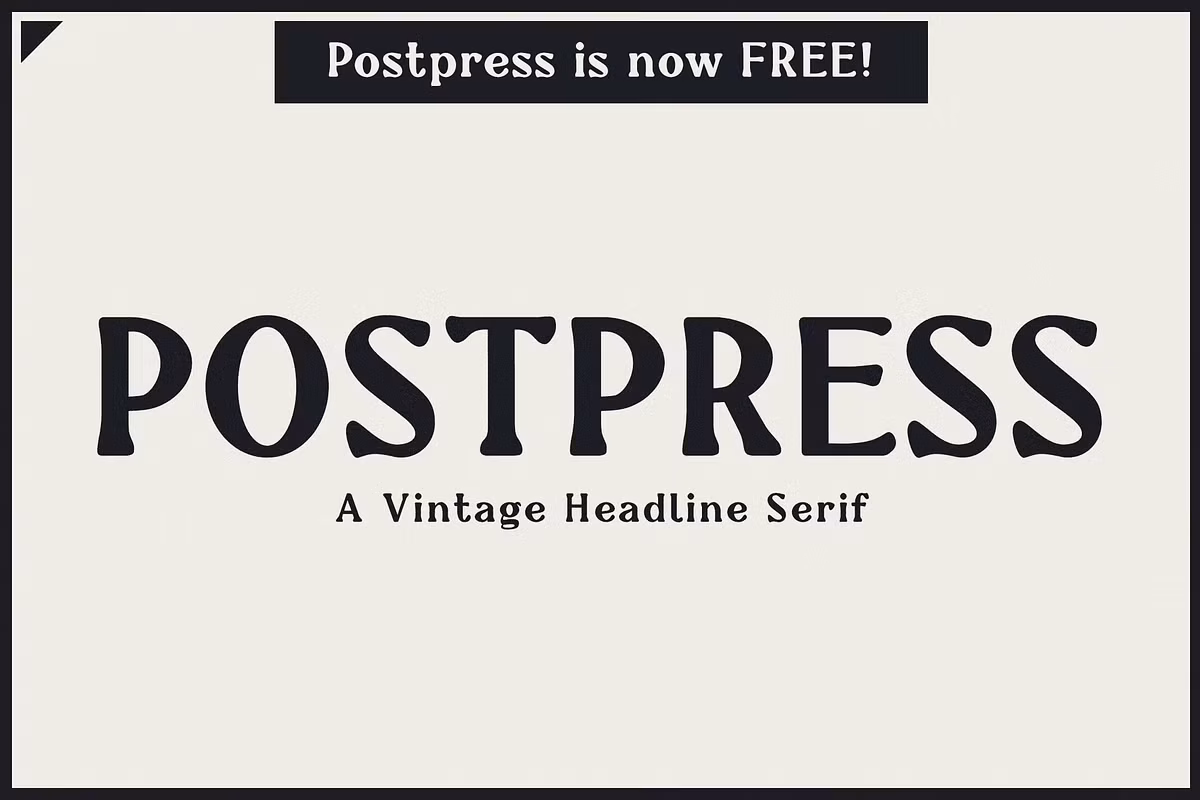
Postpress – FREE Industrial Serif Free Download is a bold, mechanical-inspired serif typeface that fuses vintage industrial charm with modern functionality. Designed with strong lines, sharp serifs, and a robust presence, this font is ideal for editorial layouts, signage, branding for rugged products, and creative projects that demand strength and style.
Postpress – FREE Industrial Serif Free Download evokes the feel of old-world printing presses and heavy machinery while remaining clean and highly legible. Whether you’re designing for tech, manufacturing, or vintage-themed branding, this typeface brings a confident, masculine energy to your work.